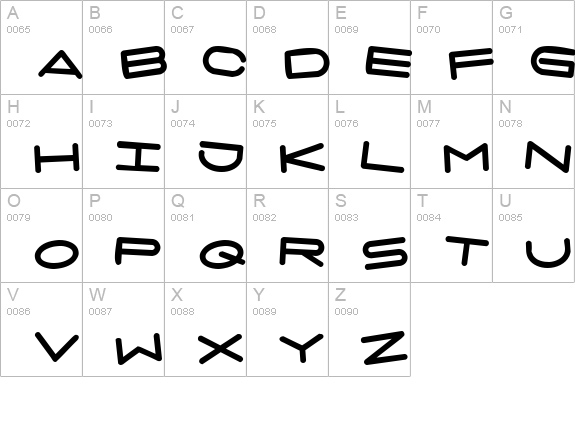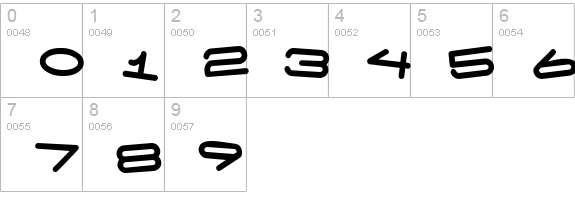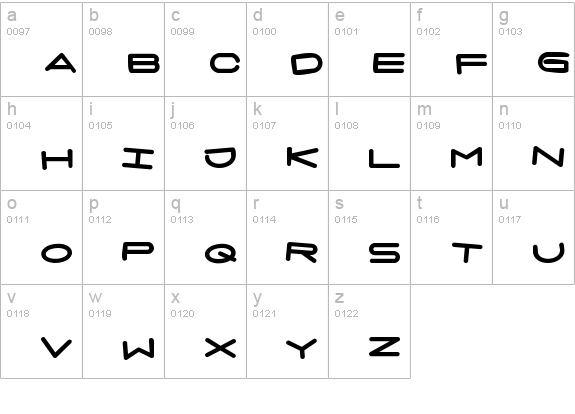
7 days fat rotated Font Details
Introducing the captivating and versatile 7 Days Fat Rotated font, a striking typeface that adds a unique touch to any design project. This font features bold, rotated characters that exude a sense of modernity and style. With its eye-catching appearance, 7 Days Fat Rotated is perfect for headlines, logos, posters, and more. Best of all, this font is available for free download exclusively at FontsMarket.com. Don't miss out on the opportunity to add this dynamic font to your collection and elevate your creative projects to the next level. Download 7 Days Fat Rotated today and unleash your creativity with this stunning font!